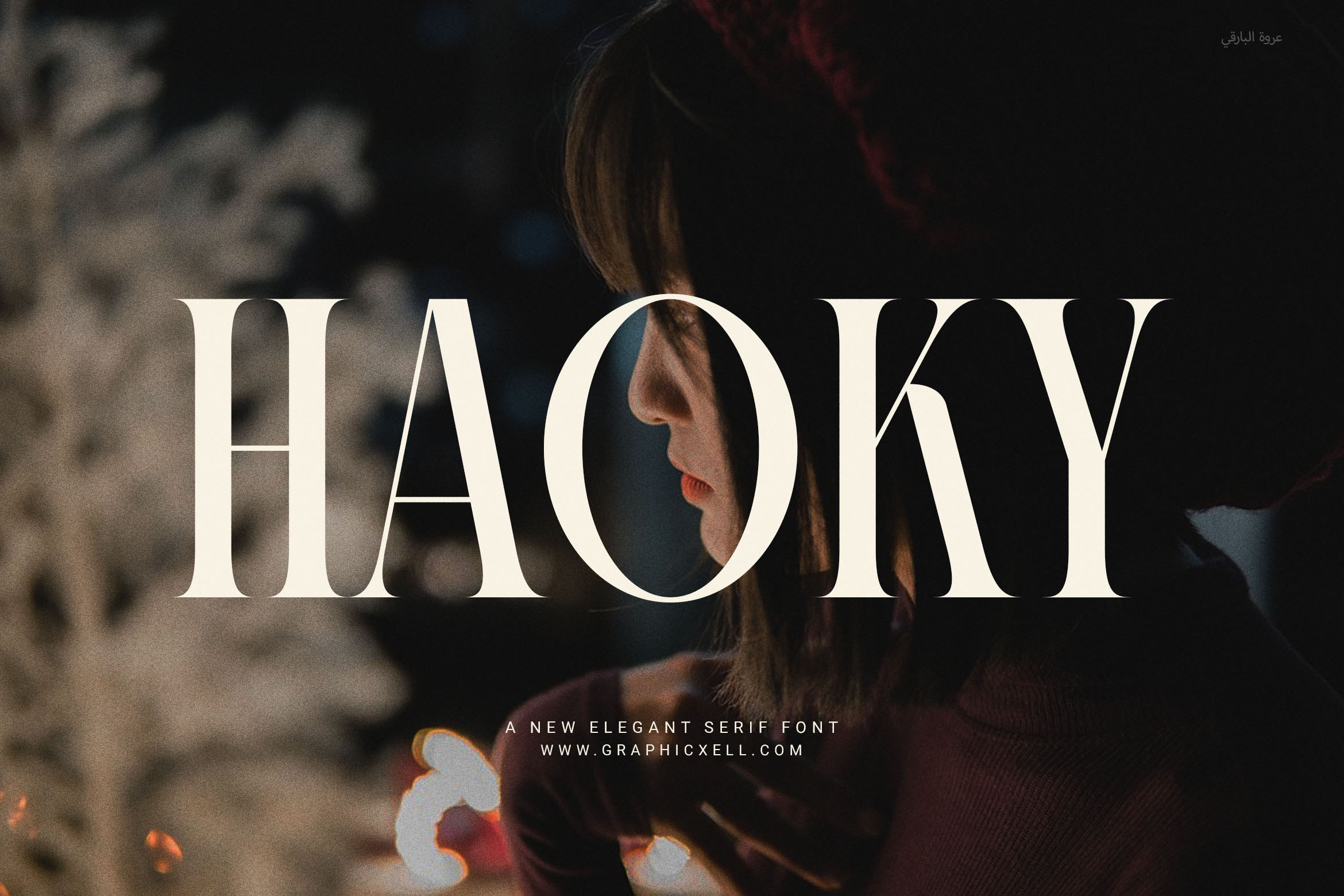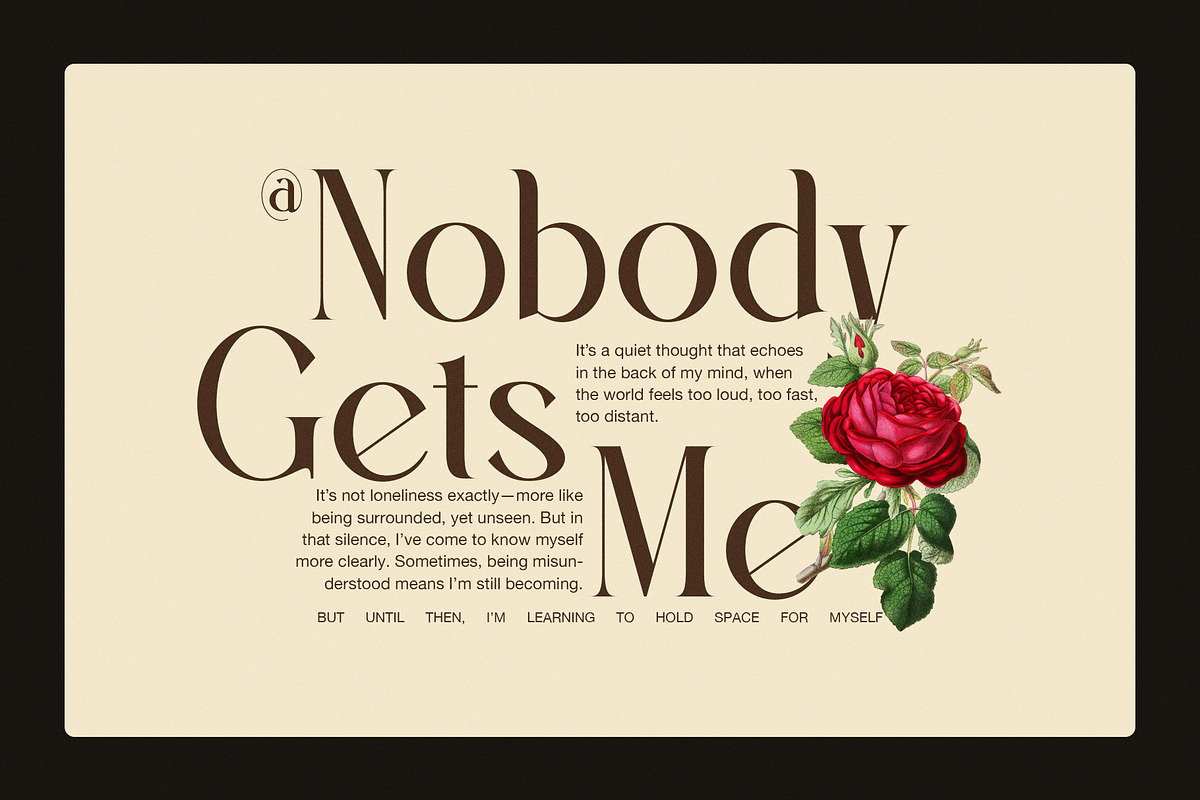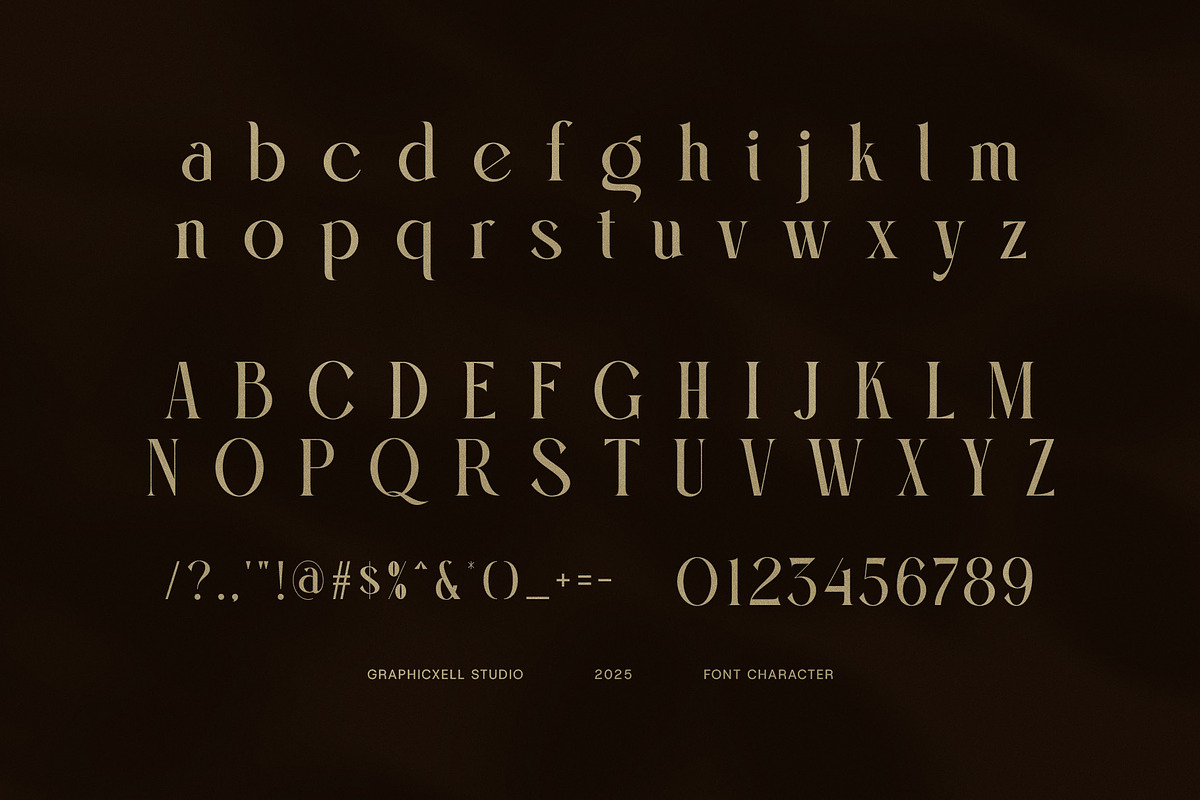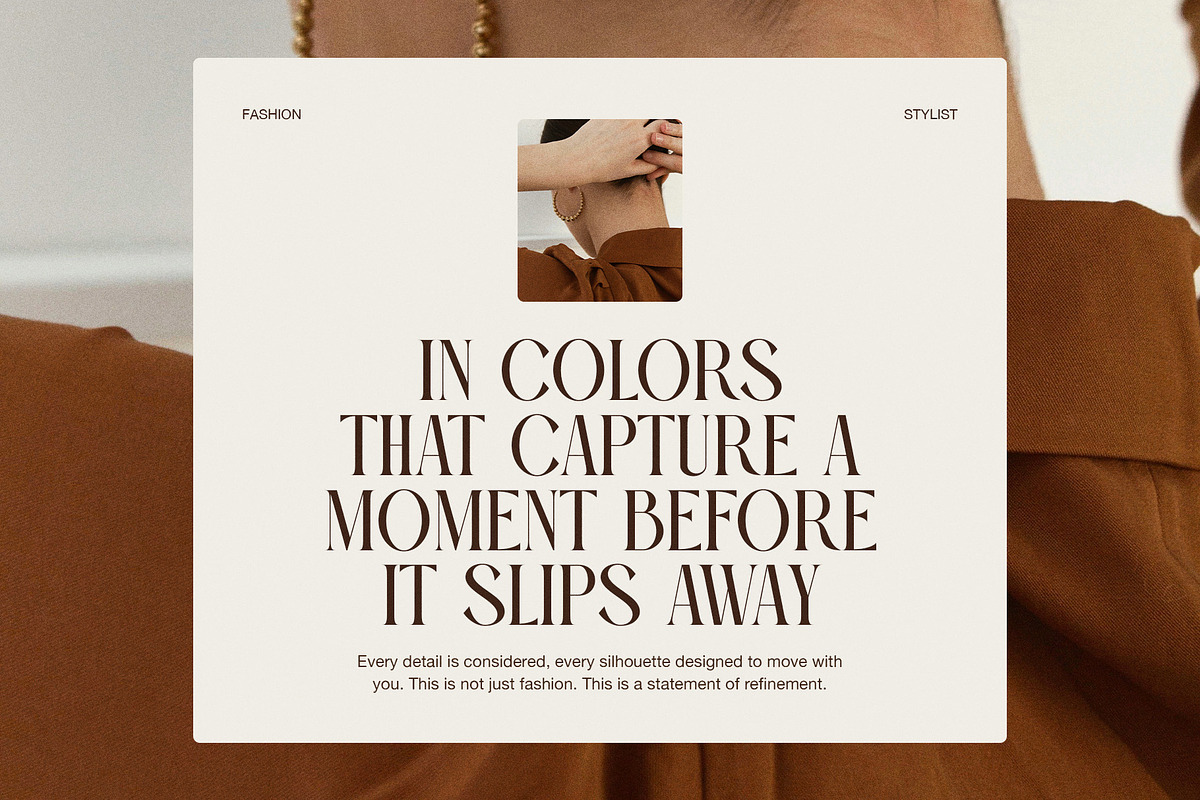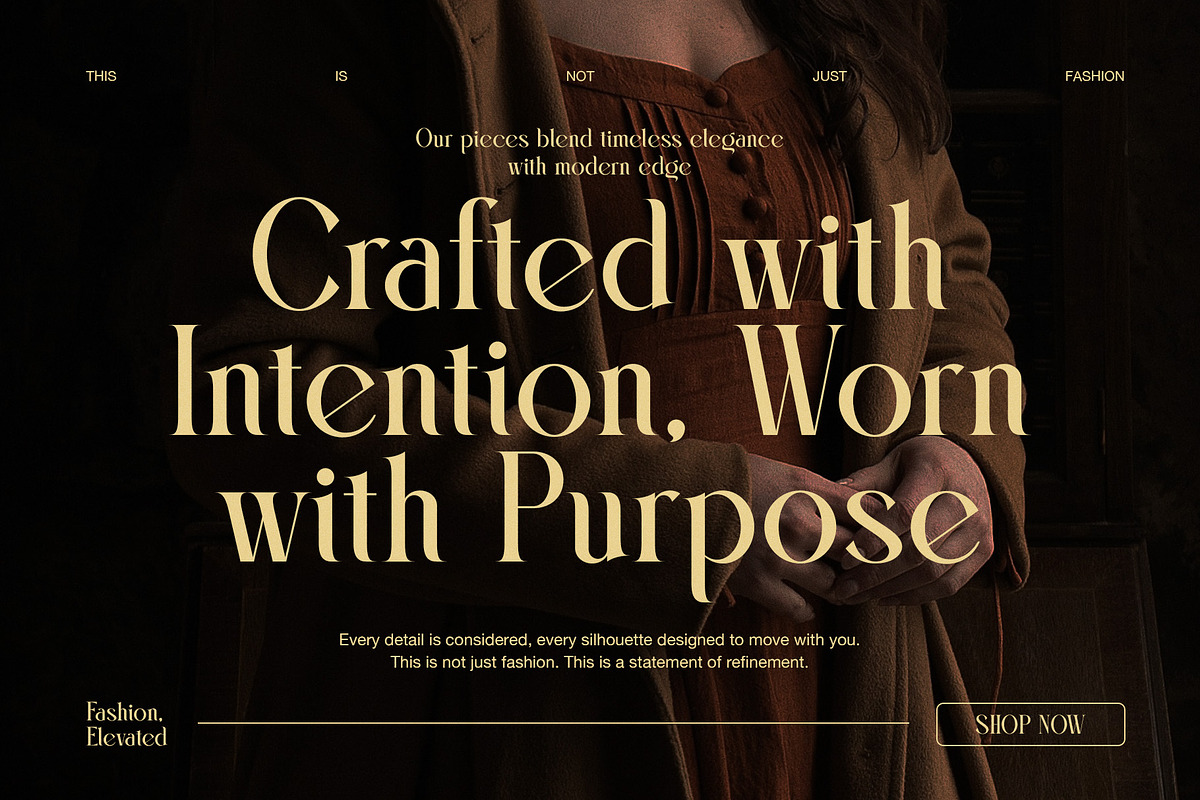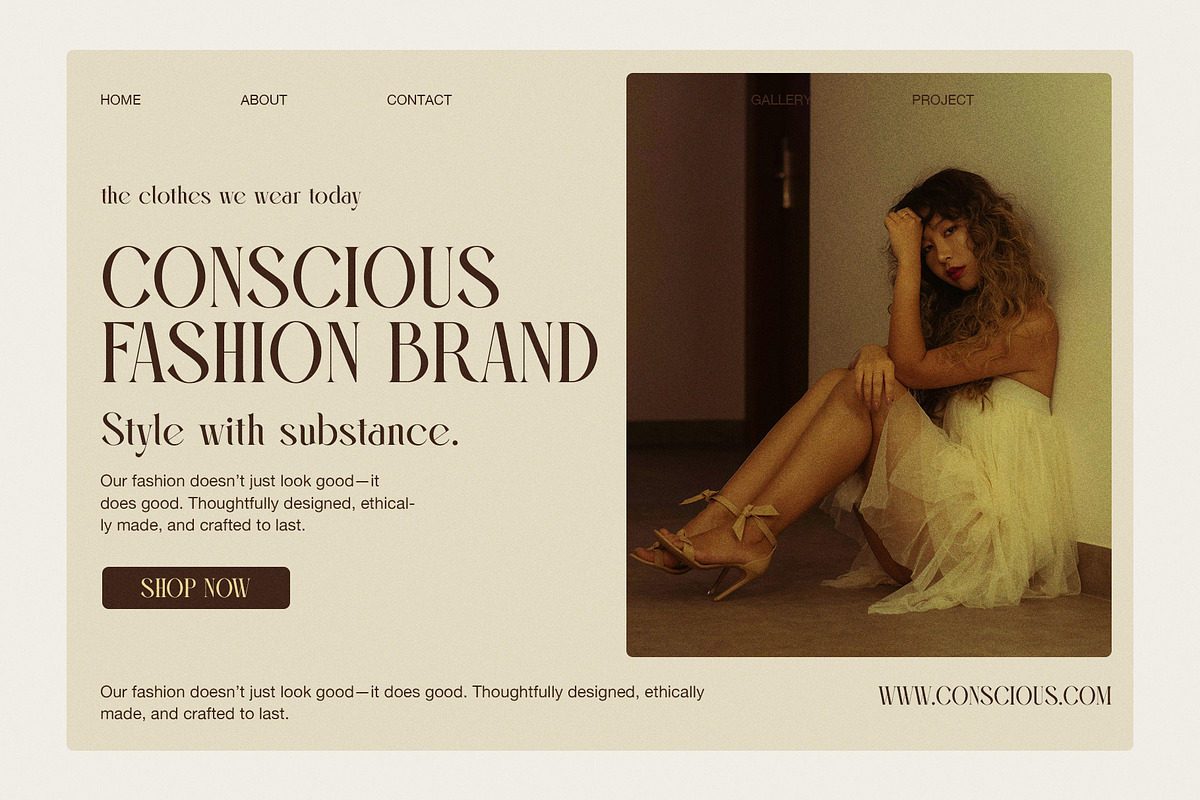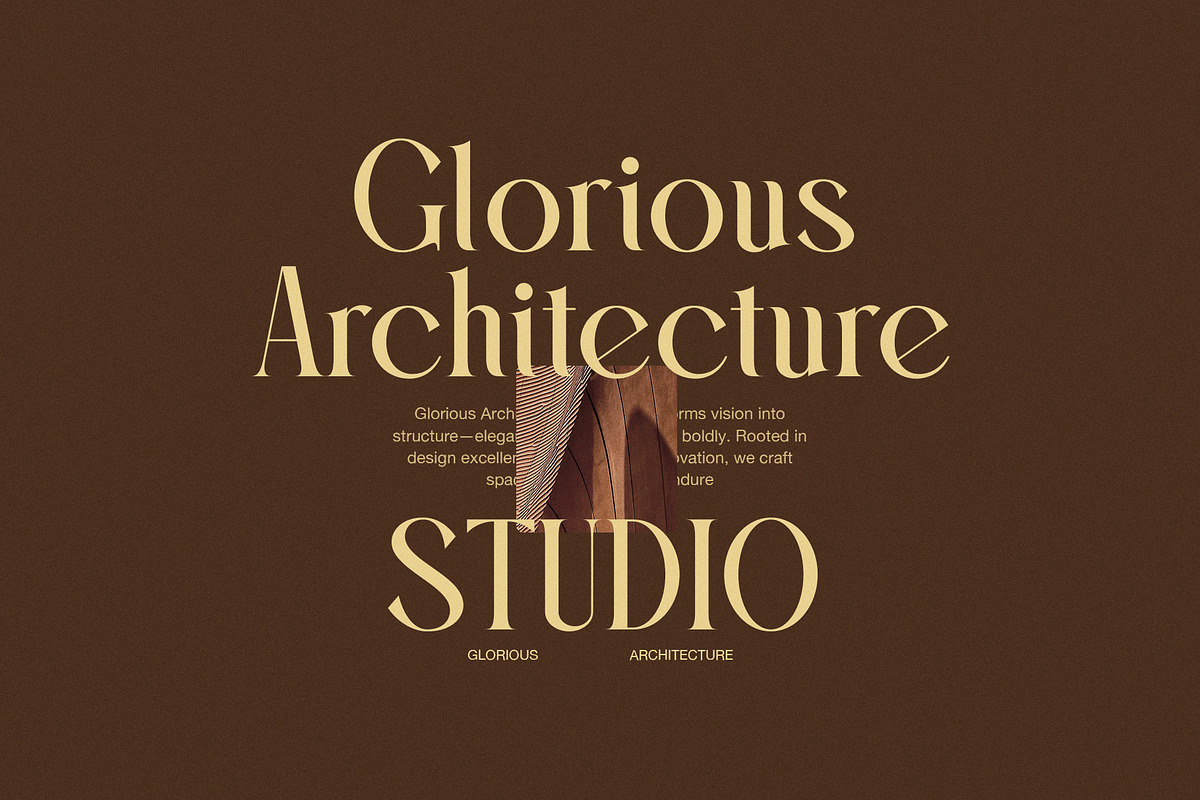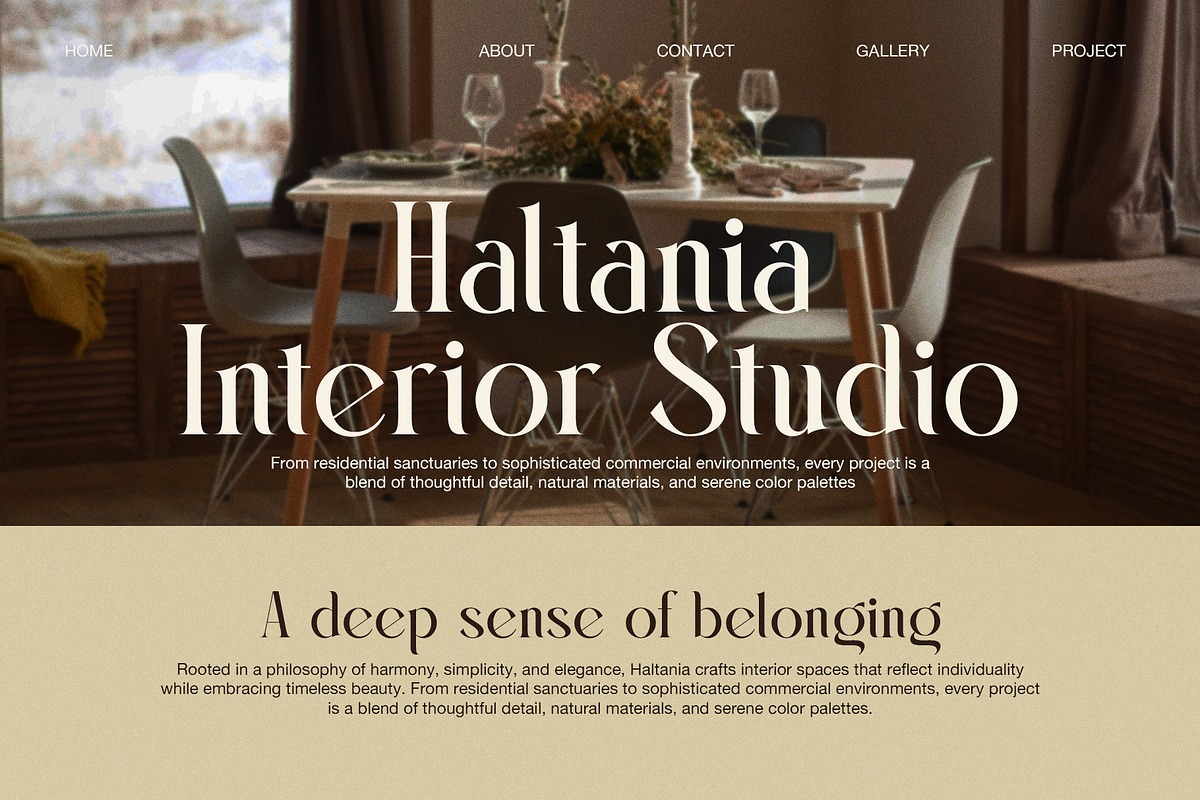
Haoky Elegant Serif Font
✨ Haoky Elegant Serif Font – Simple, Stylish, and Made for Brands
Haoky Elegant Serif Font is a modern serif typeface with a clean and graceful style. It was made for designers and brands that want a bold but classy look. With smooth shapes and even spacing, this font works well in many kinds of design.
Haoky also includes helpful ligatures that make your text look more natural and creative. Whether you're making a logo, a website, a product label, or a social media post, Haoky gives your work a touch of charm and style.
Use Haoky for:
Business logos and brand names
Website titles and online content
Fashion and lifestyle magazines
Product labels and packaging
Ads and print materials
Boutique or food branding
Because it’s easy to read at any size, Haoky is great for both print and digital use. It looks sharp on screens and in print, and it supports many languages, making it perfect for global use. Haoky’s modern look still feels classic, so it fits a wide range of styles.
To sum it up, Haoky is not just a font—it’s a smart choice for anyone who wants to stand out with clean, modern design.